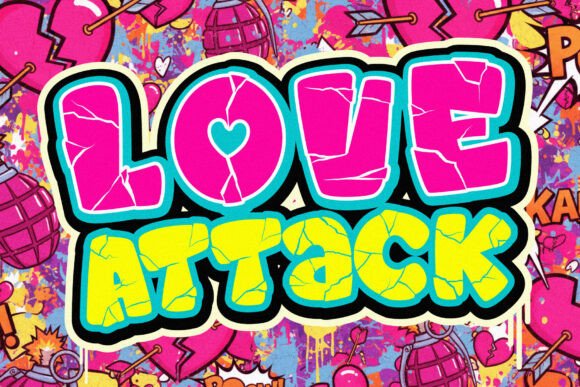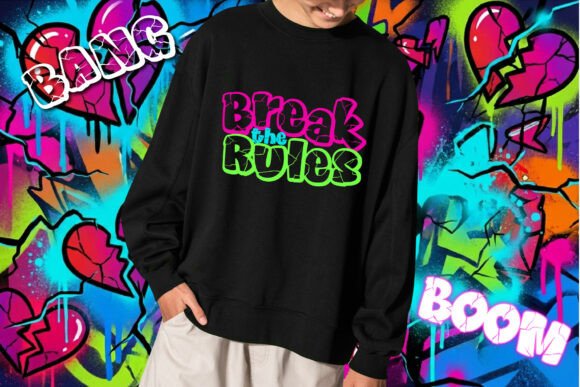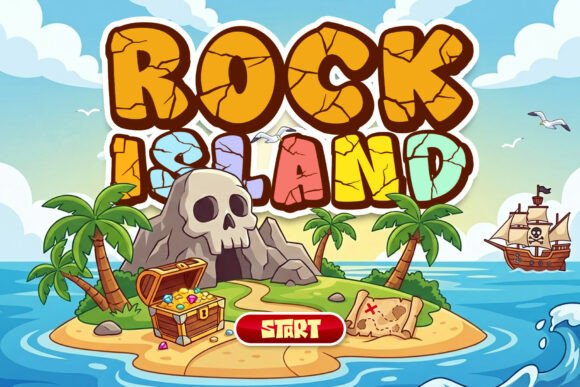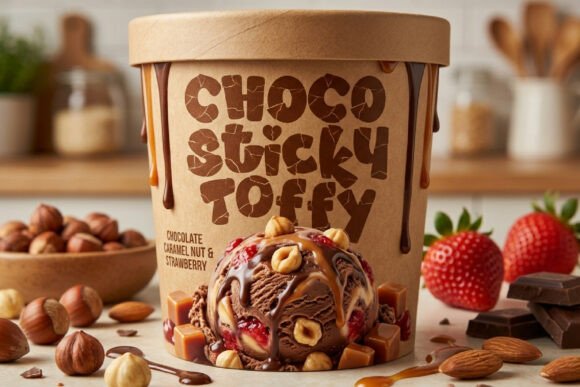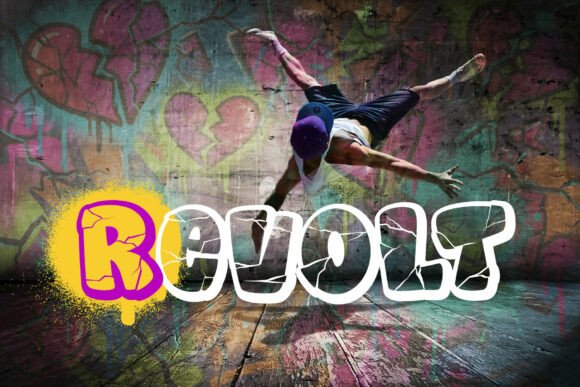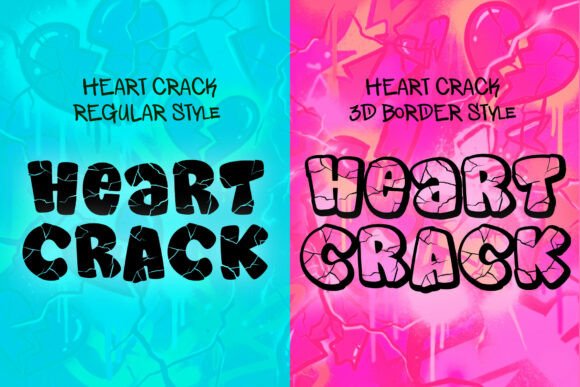
Introduction to Heart Crack Font
Introducing Heart Crack – a fearless graffiti-inspired display font that echoes the playful spirit of urban street life.
Balancing a comic-style energy with a bold, disruptive design, this font infuses every project with unforgettable personality and a punch of vibrant charisma In the package, you’ll find Heart Crack nesting in two distinct styles: a straight-laced ‘Regular’ style standing tall amongst clean designs, and a daring ‘3D Border’ style ready to make headlines pop.
Heart Crack Font offers exceptional quality and versatility, making it a valuable addition to your design toolkit. Whether you’re creating for personal projects or commercial use, Heart Crack Font delivers professional results.